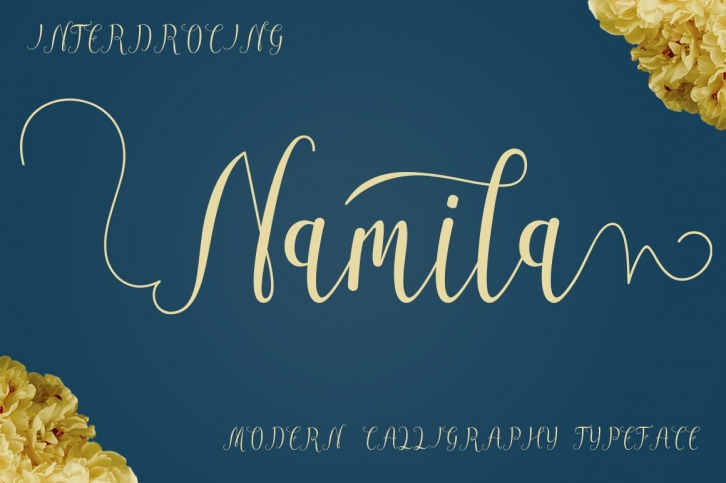
Namila is the font style handmade dancing and then live trace to have unique forms of calligraphy, the writing style is very natural.
Can be used for various purposes.such as headings, logos, wedding invitation, t-shirt, letterhead, signage, lable, news, posters, badges etc. To enable the OpenType Stylistic alternates, you need a program that supports OpenType features such as Adobe Illustrator CS, Adobe Indesign & CorelDraw X6-X7.